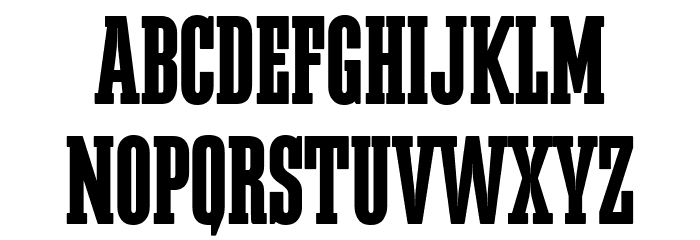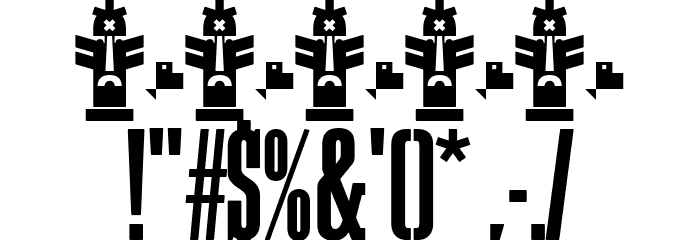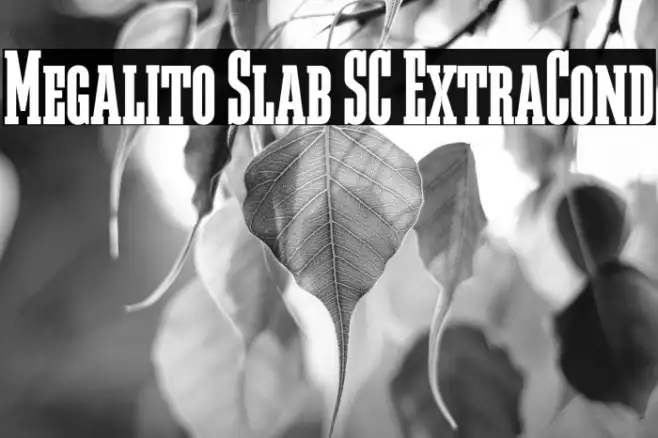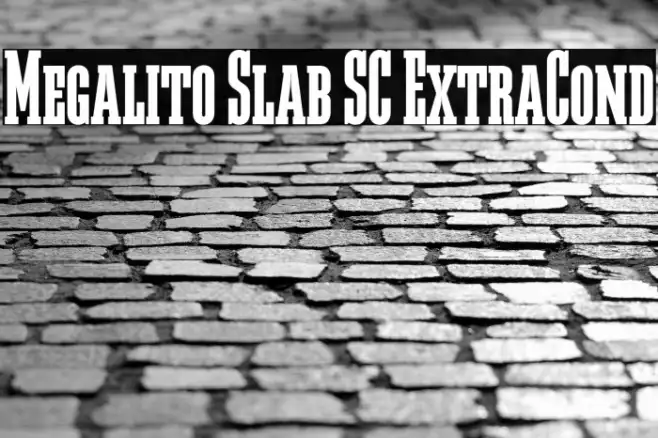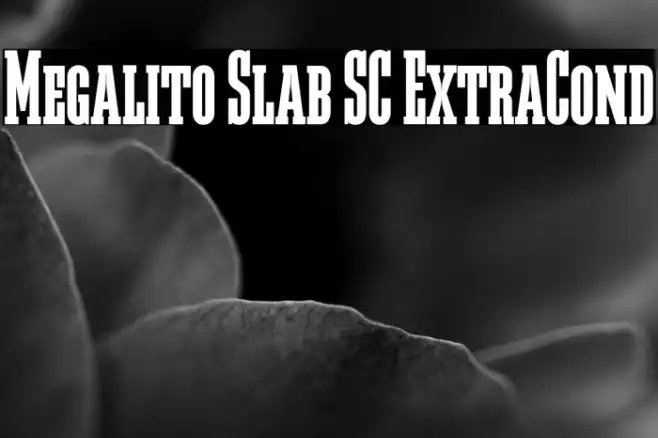
Megalito Slab SC ExtraCond Font
This font is a bold and striking slab serif with an extra-condensed width, giving it a powerful and commanding presence. The uppercase letters are tall and narrow, with thick vertical strokes and slightly thinner horizontal strokes, creating a high contrast that enhances readability. The lowercase letters maintain the same boldness and condensed style, ensuring consistency across different text sizes. The numerals and special characters are designed to match the robust and compact nature of the alphabet, making them suitable for impactful displays. Overall, this font exudes a modern yet timeless appeal, ideal for making a strong visual statement.
A bold, extra-condensed slab serif font with high contrast and a commanding presence.
- Proposed Projects: Ideal for headlines, posters, branding, and any project requiring a strong visual impact.
- Category: Slab Serif
- Character Spacing: Tight